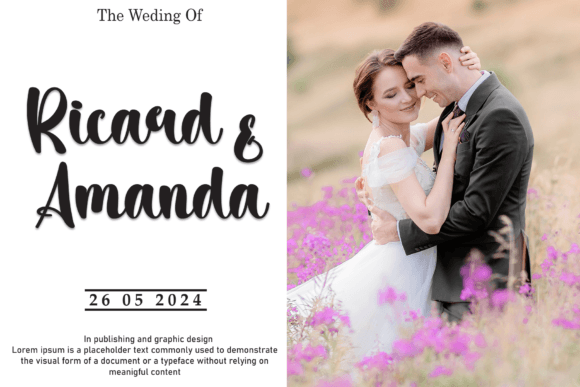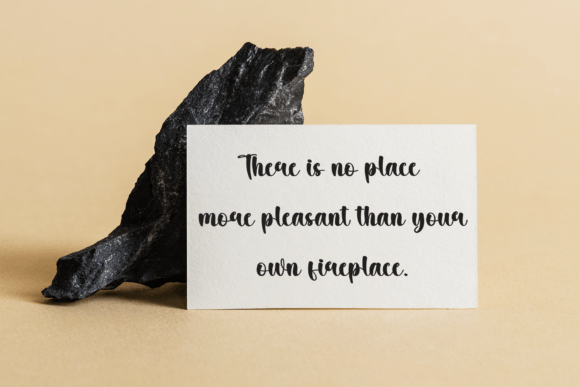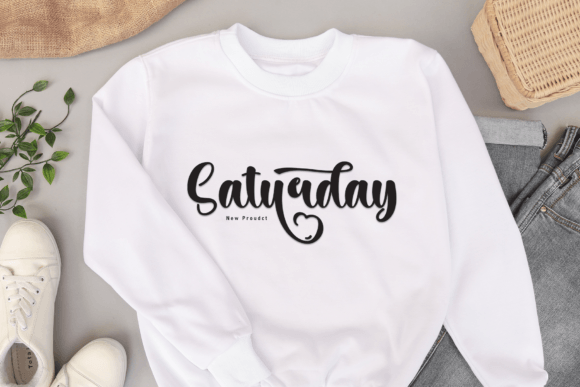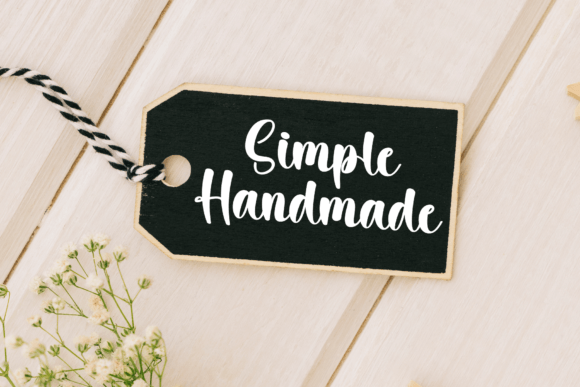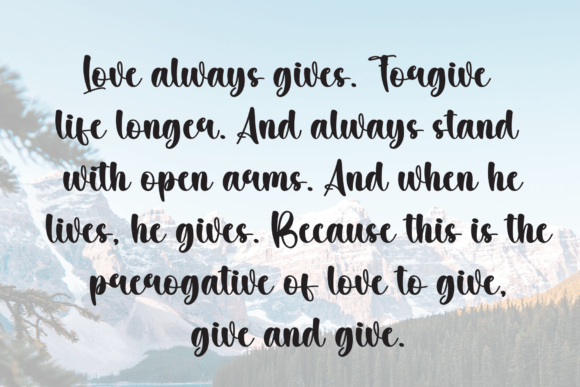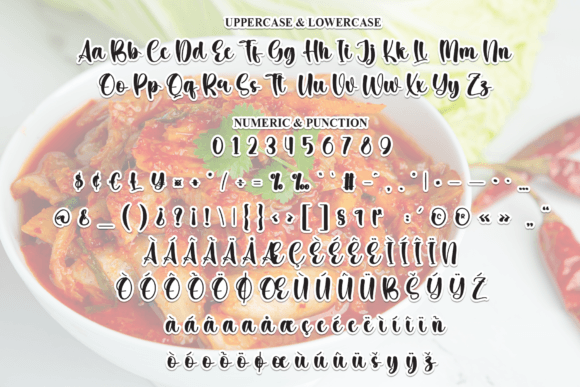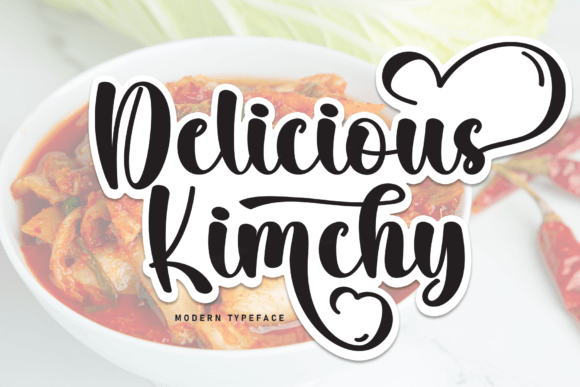
Introducing Delicious Kimchi: The Ultimate Modern Handwritten Font
Are you tired of using the same old fonts for your design projects? Look no further! Delicious Kimchi is a modern and charming handwritten font that is sure to elevate your designs to the next level. With its elegant and sophisticated character, this font is perfect for upscale invitations, personal branding, and chic editorial designs.
The Characteristics of Delicious Kimchi
Delicious Kimchi is a true gem in the world of typography. Its graceful, flowing strokes and refined lines make it a standout among other handwritten fonts. The font’s sophisticated character is perfect for designers and crafters who want to add a touch of elegance and personality to their projects.
One of the key features of Delicious Kimchi is its unique blend of modern and classic elements. The font’s flowing strokes and cursive connections give it a distinctly modern feel, while its refined lines and sophisticated character evoke a sense of timeless elegance.
Perfect for Upscale Designs
Delicious Kimchi is the perfect choice for designers and crafters who want to create upscale designs that exude luxury and sophistication. Whether you’re designing invitations, business cards, or editorial content, this font is sure to make your projects stand out.
The font’s elegant character makes it perfect for use in:
- Upscale invitations, such as wedding invitations, baby shower invitations, and graduation announcements
- Personal branding, including logos, business cards, and letterheads
- Chic editorial designs, such as fashion magazines, lifestyle blogs, and food blogs
Why Choose Delicious Kimchi?
So why choose Delicious Kimchi over other handwritten fonts? Here are just a few reasons:
- Unique and distinctive: Delicious Kimchi has a unique and distinctive character that sets it apart from other handwritten fonts.
- Elegant and sophisticated: The font’s elegant and sophisticated character makes it perfect for upscale designs.
- Versatile: Delicious Kimchi can be used for a wide range of design projects, from invitations to editorial content.
- Easy to read: The font’s clear and refined lines make it easy to read, even at small sizes.
Tips for Using Delicious Kimchi
Here are a few tips for using Delicious Kimchi in your design projects:
- Pair it with a sans-serif font: Pair Delicious Kimchi with a sans-serif font, such as Arial or Helvetica, to create a striking contrast.
- Use it for headlines and titles: Delicious Kimchi is perfect for use in headlines and titles, where its elegant character can really shine.
- Experiment with different colors: Delicious Kimchi looks great in a wide range of colors, from bold and bright to soft and pastel.
In conclusion, Delicious Kimchi is a modern and charming handwritten font that is perfect for designers and crafters who want to add a touch of elegance and personality to their projects. With its unique blend of modern and classic elements, this font is sure to elevate your designs to the next level. Whether you’re designing upscale invitations, personal branding, or chic editorial content, Delicious Kimchi is the perfect choice.